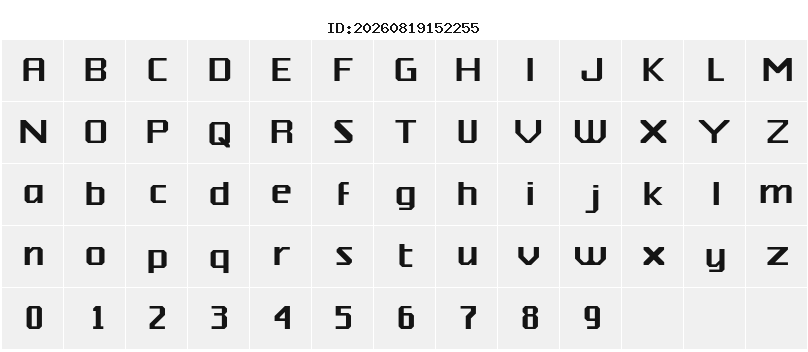
Silicon Preview
• Font Name: Silicon
• Full Font Name: Silicon
• PostScript Name: Silicon
About Silicon.ttf
Silicon.ttf is a modern, elegant sans-serif font designed for ultimate readability and visual harmony. Perfect for branding, headlines, web design, and print materials.